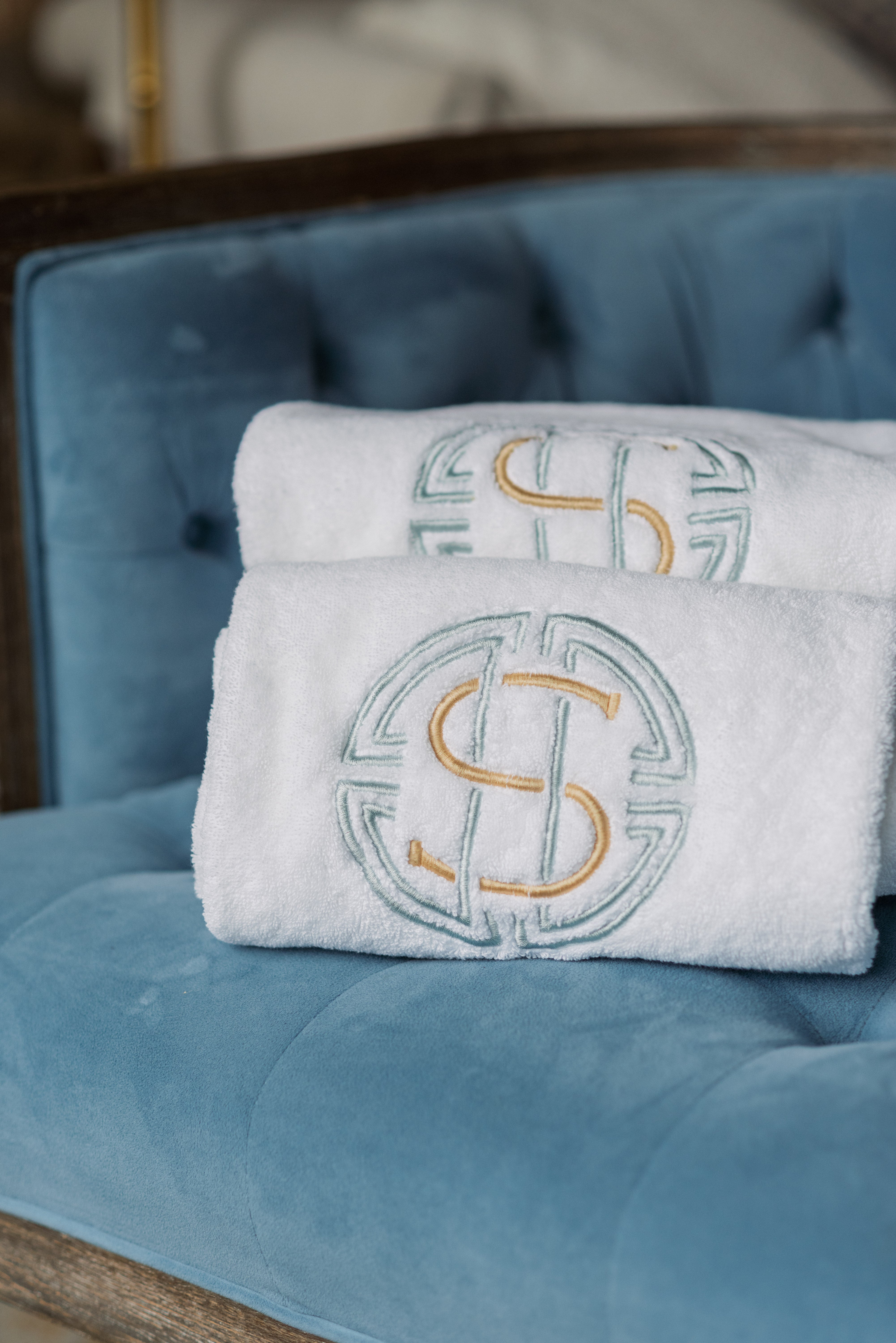
Single Medallion Font for Embroidery
This beautiful collection of 26 medallion letters includes an additional 6 frames featuring variants of the medallion design.
Perfect for embroidery, the careful attention in the digitization of each design makes personalization unique and beautiful!